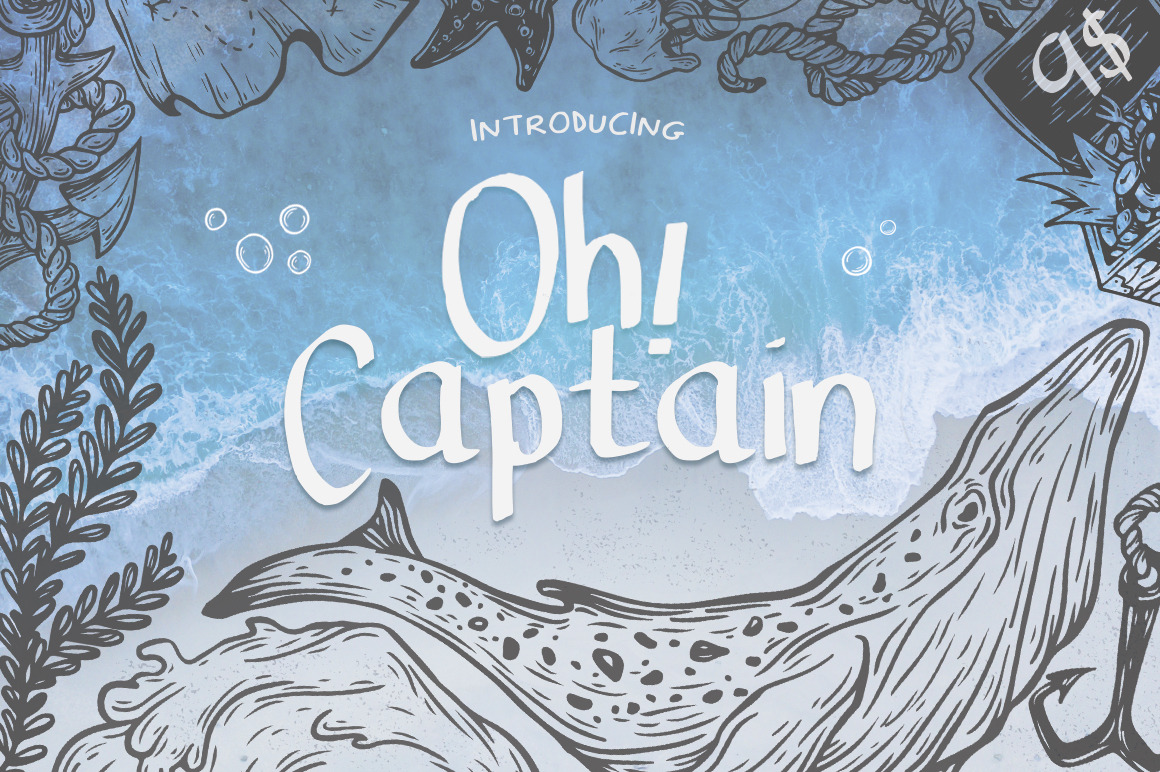
Oh Captain Font
Oh! Captain. A fabulously bold new font from Salt & Pepper Designs. Fun for headers and combines well with script fonts. Enjoy, it's Whaley good! (Sorry!)